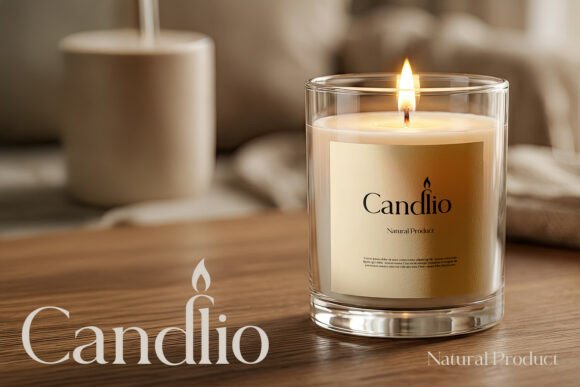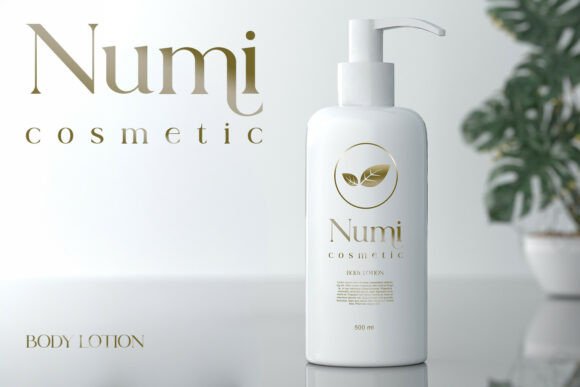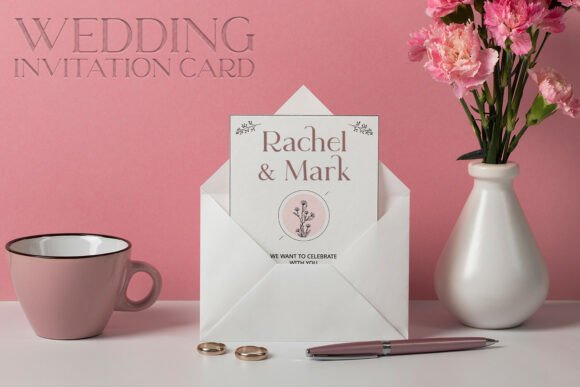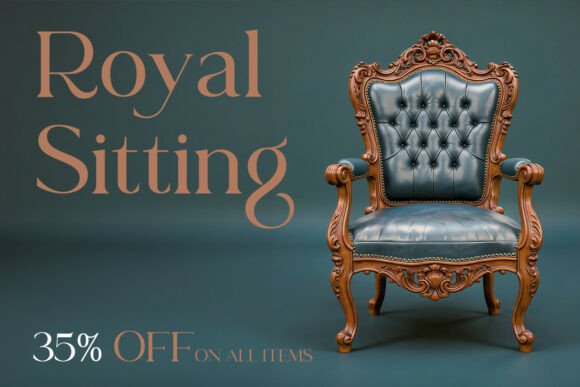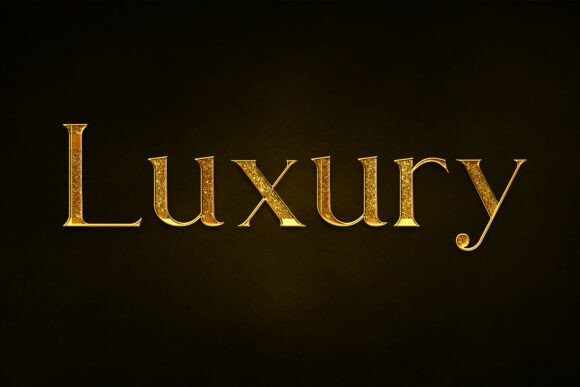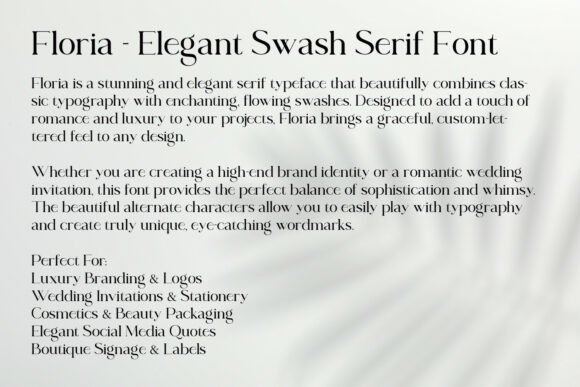
The Elegance of Floria Font: A Designer’s Dream Come True
I’ll never forget the time I was working on a luxury branding project for a high-end cosmetics client. I had spent hours agonizing over the perfect logo design, but something was missing. The typography just didn’t feel luxurious enough. I scoured font libraries and design marketplaces, but nothing seemed quite right. That was when I stumbled upon Floria Font. ✨
As soon as I saw it, I knew I had found the one. Floria is a high-end serif typeface that masterfully blends classical elegance with artistic flair. Its sophisticated curves and stunning, handcrafted swashes make it the ultimate choice for premium branding, high-fashion editorial layouts, and exquisite wedding stationery.
An Honest Review of Floria Font
- ✨ Elegant and sophisticated design that’s perfect for luxury branding
- ✅ Extensive OpenType features, including handcrafted swashes and decorative alternates
- ✅ Highly versatile and adaptable to various design projects
- ✅ Beautifully crafted glyphs and stylistic alternates
While Floria Font is an exceptional typeface, there are a few things to keep in mind: ⚠️
- 🤔 Some users may find the font a bit challenging to read at smaller sizes due to its intricate design
- ⚠️ Limited availability of certain language scripts
The Backstory of Floria Font
Floria Font was designed by a renowned type designer who drew inspiration from classical elegance and artistic flair. The designer’s goal was to create a typeface that would bring a touch of luxury and romance to creative projects. With its stunning, handcrafted swashes and decorative alternates, Floria Font is the perfect choice for designers looking to add a touch of sophistication to their work.
Q: What is Floria Font?
A: Floria Font is a high-end serif typeface that masterfully blends classical elegance with artistic flair.
Q: What design projects is Floria Font best suited for?
A: Floria Font is perfect for premium branding, high-fashion editorial layouts, exquisite wedding stationery, and luxury packaging.
Q: Is Floria Font easy to read?
A: While Floria Font is a beautiful and elegant typeface, it may be challenging to read at smaller sizes due to its intricate design. It’s best used at larger sizes or for display purposes.